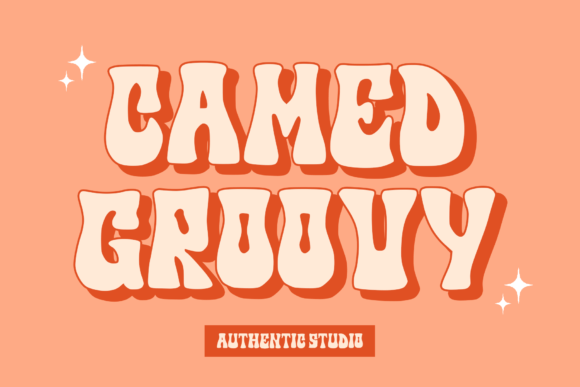
Enter the Camed Groovy Font, a typography gem that embodies the essence of funk and personality. This font is designed to make a statement, adding a touch of whimsy to any project that requires a little extra oomph. Whether you’re working on an album cover, poster, or advertisement, the Camed Groovy Font is the perfect choice to inject some fun and energy into your design.
As a designer, you know how valuable it is to have a versatile font that can adapt to any project. The Camed Groovy Font delivers, offering a unique aesthetic that’s sure to capture attention and leave a lasting impression.
Camed Groovy Font Key Features
- Unique Characteristics: Features a unique blend of psychedelic and retro elements, with a groovy vibe
Camed Groovy Font Review
At first glance, Camed Groovy Font is an attractive option for designers looking to add a touch of whimsy to their projects. ✨ The font’s unique blend of retro and modern elements makes it stand out from more traditional font options. It’s perfect for creating eye-catching headlines, titles, and other display text.
- ✨ Unique blend of retro and modern elements makes it versatile for various design projects.
- ✨ Works well for creating attention-grabbing headlines and titles.
- ✨ The font is well-suited for digital designs, including social media posts, advertisements, and website headers.
However, there are some limitations to consider. ⚠️ The font may be too busy for certain types of text, such as body copy or long paragraphs. Additionally, the font’s uniqueness can sometimes come across as gimmicky or over-the-top.
- ⚠️ May be too busy for body copy or long paragraphs.
- ⚠️ The font’s uniqueness can sometimes feel gimmicky or over-the-top.
- ⚠️ Limited support for certain languages or character sets.
Overall, Camed Groovy Font is a solid choice for designers who want to add a touch of personality to their projects. While it may not be suitable for every design task, it’s a great option for creating attention-grabbing headlines and titles.
Tips for Getting the Most Out of Camed Groovy Font
Use Camed Groovy Font to add a touch of nostalgia and playfulness to your designs. Pair it with bold colors and geometric shapes to create a unique and eye-catching look.
Camed Groovy Font is perfect for:
- Designing retro-themed posters and flyers.
- Creating playful social media graphics.
- Adding a touch of whimsy to your branding and marketing materials.